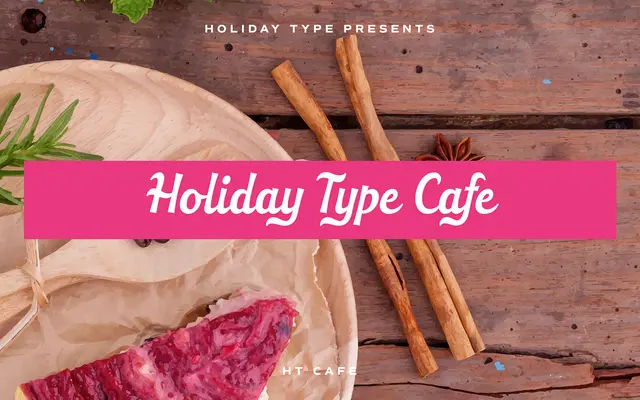
Holiday Type Project
A collection of seventeen retro script faces drawn from 1950s Italian shopfront lettering and hand-painted wall advertisements.
Each face in the collection takes its name from a type of Italian shop or establishment, evoking the hand-lettered signage of mid-century streets. The designs blend a handcrafted looseness with the elegant curves typical of Italian commercial lettering from the period. Best suited to packaging, branding and display work that calls for a nostalgic Mediterranean flavour.
The collection consists of script typefaces modelled on hand-painted shopfront lettering and wall advertisements, placing it firmly in the script category with a retro vernacular subcategory.